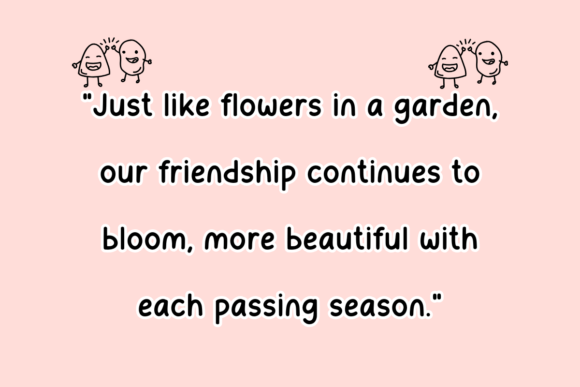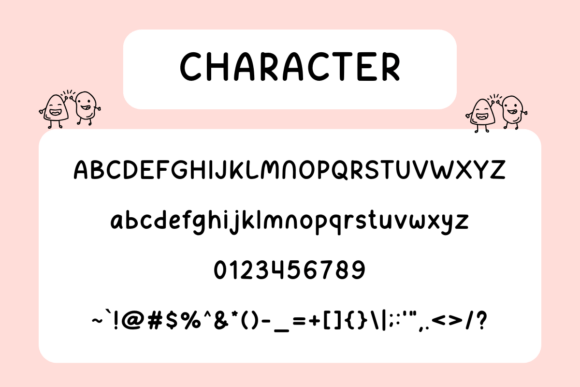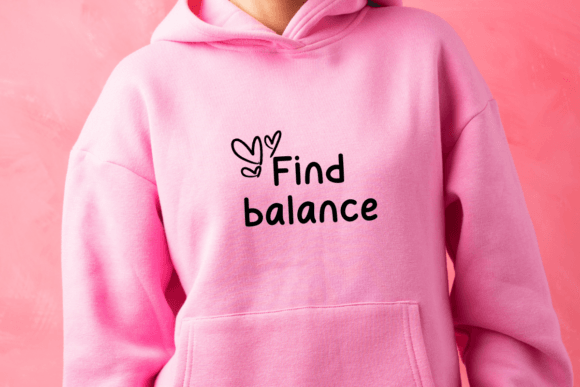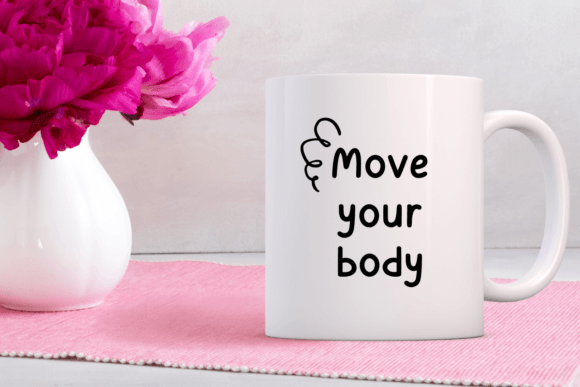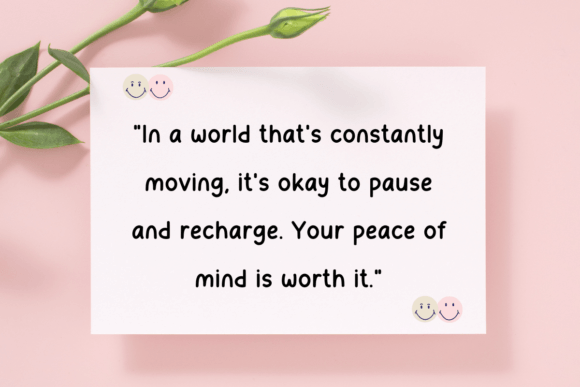
Blooming Together Font: The Perfect Companion for Designers and Crafters
Blooming Together is a delightful, handwritten sans serif font that’s taking the design world by storm. Its playful and charming vibe makes it an excellent choice for a wide range of projects, from crafts and digital design to presentations and greeting cards. In this article, we’ll dive into the features and benefits of Blooming Together Font, and explore how it can become your go-to font for all occasions.
A Font that’s Full of Personality
Blooming Together Font boasts a unique, hand-crafted feel that’s perfect for adding a personal touch to your designs. Its sans serif style gives it a clean and modern look, while its handwritten essence injects a dose of warmth and friendliness. This font is ideal for designers and crafters who want to create projects that stand out from the crowd and showcase their personality.
Versatility at its Best
One of the best things about Blooming Together Font is its versatility. Whether you’re working on a digital project, such as a social media graphic or a website header, or a physical craft, like a handmade card or a DIY sign, this font adapts seamlessly. Its clear and legible design ensures that your message is conveyed effectively, making it perfect for a wide range of applications.
Crafts and DIY Projects
Crafters and DIY enthusiasts will love Blooming Together Font for its ability to add a personal touch to handmade projects. Use it to create:
- Handmade cards and gift tags
- Customized scrapbook pages and photo albums
- Personalized signs and wall art
- Decorative labels and stickers
Digital Design and Presentations
Digital designers and presenters will appreciate Blooming Together Font for its ability to add a touch of personality to digital projects. Use it to create:
- Engaging social media graphics and posts
- Eye-catching website headers and banners
- Interactive presentations and slideshows
- Email newsletters and marketing materials
Why Blooming Together Font Stands Out
So, what sets Blooming Together Font apart from other fonts? Here are a few reasons why it’s becoming a favorite among designers and crafters:
- Unique and playful design: Blooming Together Font has a one-of-a-kind look that’s sure to grab attention.
- Highly legible: Despite its playful nature, this font is easy to read, making it perfect for conveying messages.
- Versatile: Use it for a wide range of projects, from digital design to crafts and DIY projects.
Tips for Using Blooming Together Font
To get the most out of Blooming Together Font, here are a few tips:
- Experiment with colors: This font looks great in a variety of colors, so don’t be afraid to try out different hues and combinations.
- Mix and match: Combine Blooming Together Font with other fonts to create interesting and dynamic designs.
- Play with sizes: Use different font sizes to add emphasis and create visual interest.
Blooming Together Font is a fun, cute, and versatile font that’s perfect for designers and crafters. Its unique and playful design, combined with its high legibility and ease of use, make it an excellent choice for a wide range of projects. Whether you’re working on a digital design, a craft, or a presentation, Blooming Together Font has the potential to become your go-to font. So why not give it a try and see how it can bring your designs to life?